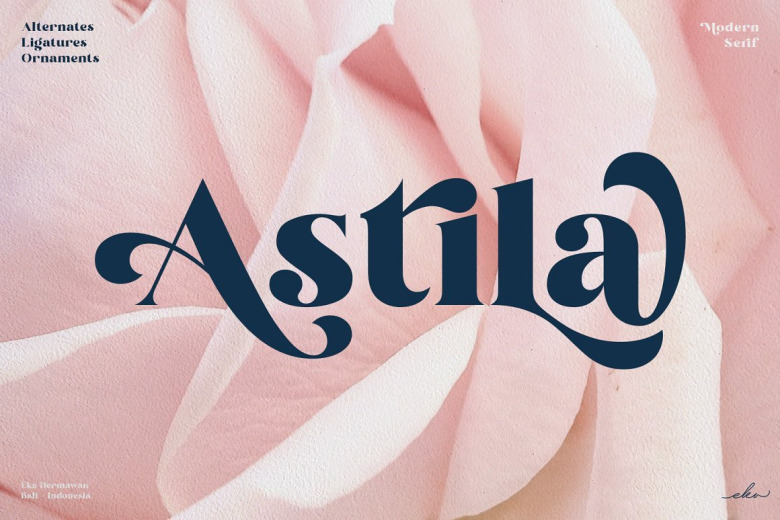
Astila Serif Font
Astila is a modern serif font with a bunch of alternates and ligatures characters. Astila is including with more than 100+ alternates characters (PUA Encoded) that give you a wide range of typographic design results. Astila is a versatile font for many different projects such as logo, branding, posters, magazines, label, merchandise, presentation, advertising, cards, quotes and so much more!